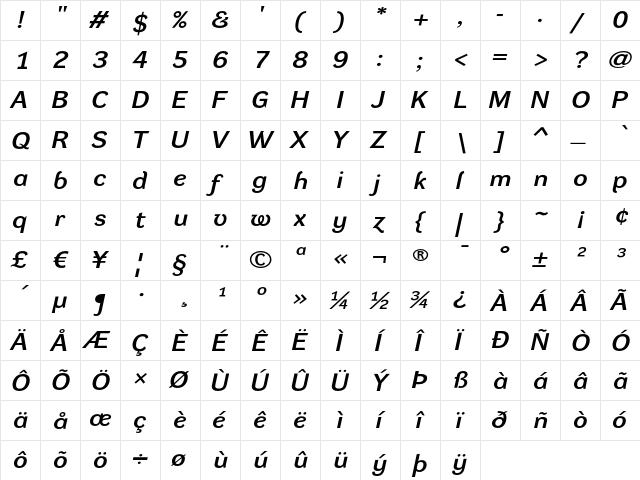
DynaGrotesk LXE Bold Italic Font Preview
DynaGrotesk LXE Bold Italic
DynaGrotesk LXE Bold Italic Font Details
| Foundry | Frantisek Storm, stormtype.com |
Design Context for DynaGrotesk LXE Typeface
DynaGrotesk LXE takes a clean, functional approach — its unadorned letterforms prioritise legibility and work reliably across screen and print environments. Its italic angle brings a sense of urgency and motion to the letterforms. The heavy weight commands attention and anchors typographic hierarchies.
Well-suited to navigation labels, product packaging, and anywhere legibility at scale is essential.
Font Pairing: Use DynaGrotesk LXE for headlines alongside a lighter-weight sans or serif for body copy to establish clear visual hierarchy.
Pro Tip: Use DynaGrotesk LXE for UI labels, navigation, and short-form body copy where clean legibility is the priority.